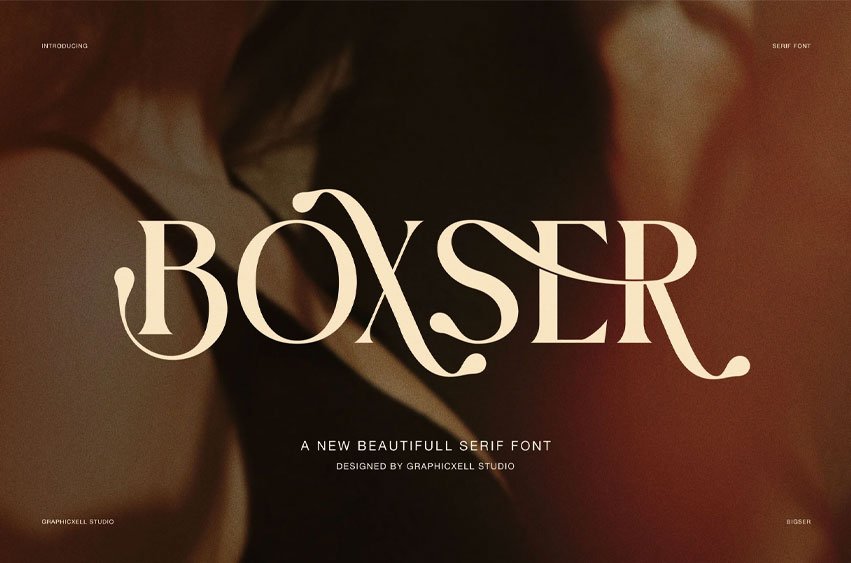
Boxer Serif Font is an elegant display serif font designed to express confidence, beauty, and refined character. From the first glance, this typeface delivers a strong visual presence while still feeling graceful and balanced. Because of its sculpted curves and expressive terminals, Boxer feels timeless yet modern, making it ideal for high-end creative projects.
This font combines classic serif structure with decorative alternates and flowing ligatures. As a result, every word gains movement and personality without sacrificing readability. Moreover, the contrast between thick and thin strokes creates a luxurious rhythm that works beautifully at large sizes. Therefore, Boxer performs best in headlines, branding, and statement typography.
Boxer is especially suitable for fashion editorials, boutique branding, and elegant advertising. In addition, it works perfectly for wedding invitations, lifestyle layouts, and premium packaging designs. Because the letterforms feel warm and artistic, the font also fits inspirational quotes, home décor prints, and modern magazine covers.
Key Features
- Elegant display serif design with refined contrast
- Decorative alternates for unique lettering styles
- Smooth ligatures that enhance word flow
- Clean punctuation and balanced numerals
- Strong readability for large headline usage
Furthermore, Boxer includes carefully crafted uppercase characters that feel bold without appearing heavy. Meanwhile, alternate characters allow designers to explore multiple looks within a single project. As a result, each design can feel custom and intentional.
Boxer supports creative freedom while maintaining professional structure. Therefore, it is an excellent choice for designers who want both beauty and flexibility. Whether you design for print or digital use, this font adapts smoothly across platforms.
In conclusion, Boxer is not just a serif font. Instead, it is a visual statement that elevates branding, storytelling, and design expression. If you need a font that communicates elegance, emotion, and confidence, Boxer delivers with style and clarity.